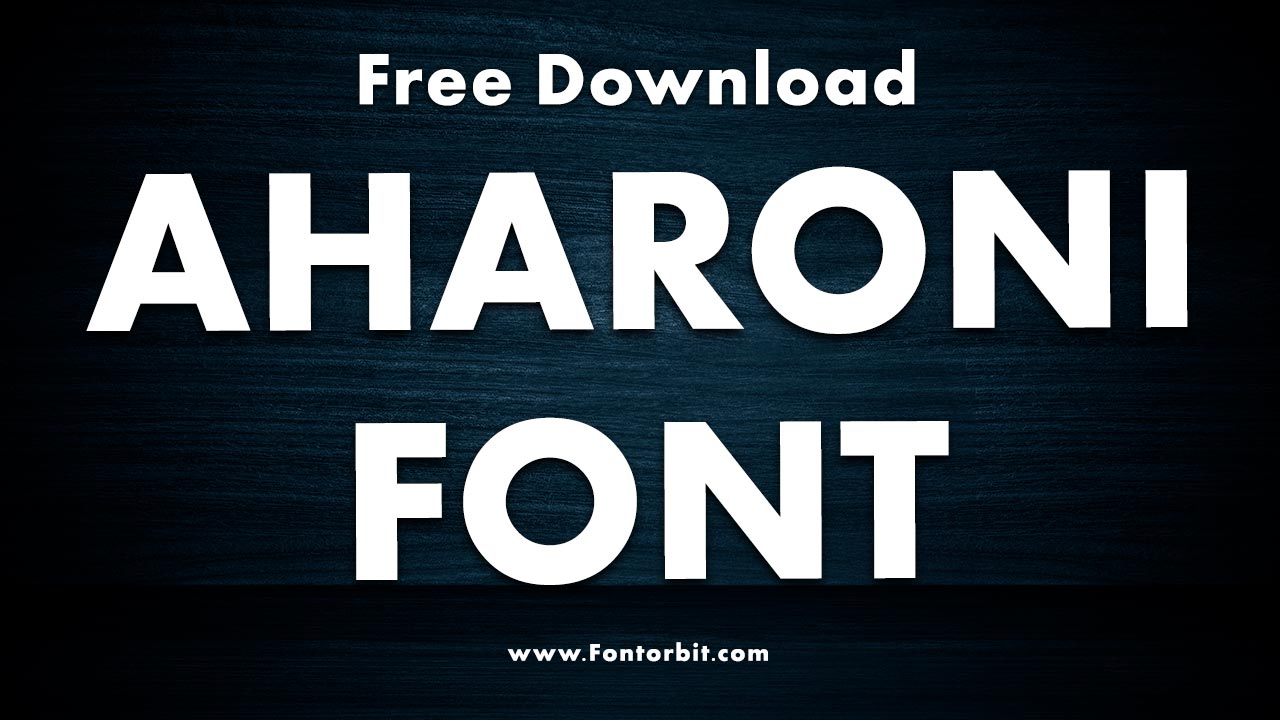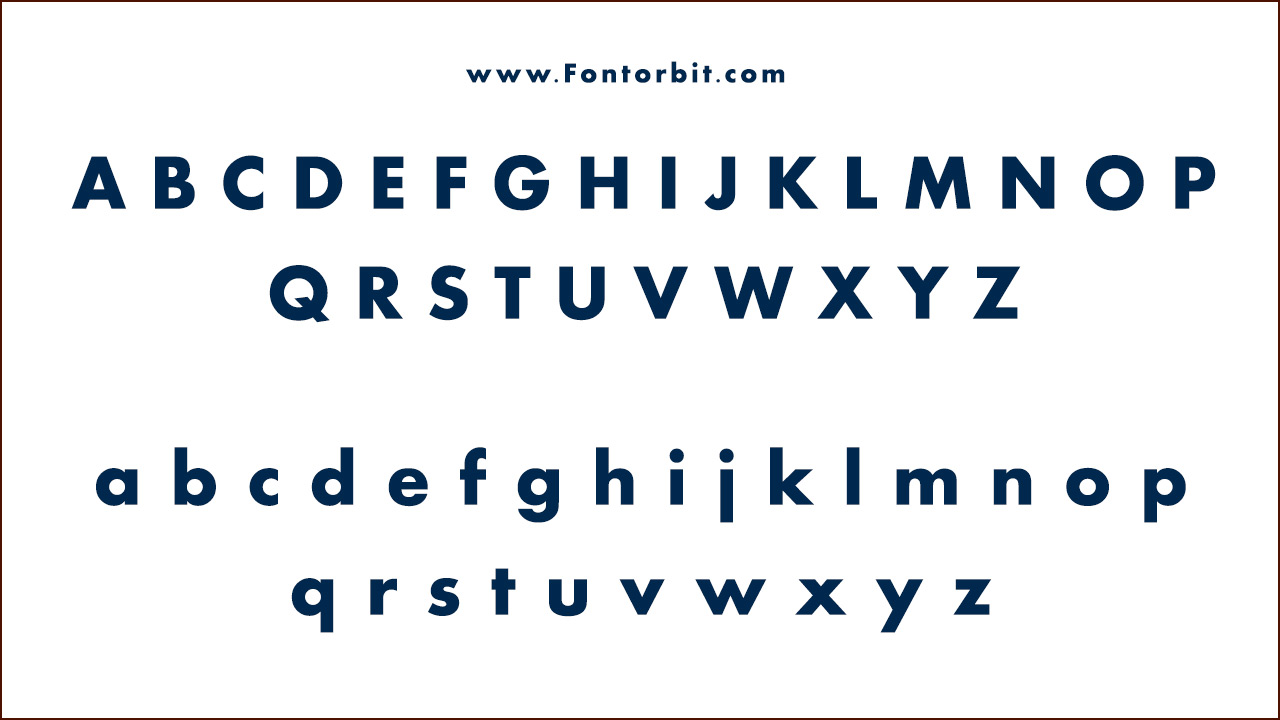
Aharoni is a well-known Hebrew typeface designed by Tuvia Aharoni, originally created for Ludwig & Mayer as a Hebrew version of the Erbar-Grotesk typeface.
It has since been adopted by the Monotype Corporation and Kivun Computers Ltd and is widely recognized for its clean and professional appearance. Aharoni has gained popularity due to its extensive use in Microsoft Windows, particularly in versions such as Windows 2000, XP, Server 2003, 7, and 8.
The Aharoni Font Family
Due to its clean and professional style, Aharoni Font is ideal for a wide range of creative projects. It can create ambitious headings, ebook covers, brand designs, and more. The font’s versatility makes it suitable for social media graphics, stadium branding, directories, event spaces, and presentations.
Aharoni Font offers a unique combination of simplicity and elegance, making it a valuable asset for designers who want to create clean and modern projects. Aharoni provides a solid foundation for professional and creative designs, whether you’re working on branding, social media graphics, or event materials.
1.How To Use Aharoni Font For Branding?
Use Aharoni’s clean lines and modern appearance to create professional logos, business cards, and promotional materials that convey clarity and reliability in your brand identity.
2.How To Customize Aharoni Font For A Unique Look?
You can customize Aharoni using font editing software like Glyphs or FontForge to adjust its design, modify existing glyphs, or add custom characters.
3.What Is The History Of Aharoni Font?
Tuvia Aharoni designed Aharoni, which was created as a Hebrew version of the Erbar-Grotesk typeface. It has since been widely used in Microsoft Windows and other applications.
4.How To Create A Logo Using Aharoni Font?
Incorporate Aharoni’s clean and modern style into your logo design by pairing it with complementary fonts or icons. Use design software like Adobe Illustrator to refine and position the font elements.
5.What Are The Best Design Projects For Aharoni Font?
Aharoni is perfect for high-impact designs such as branding materials, ebook covers, stadium branding, event graphics, and social media ads.